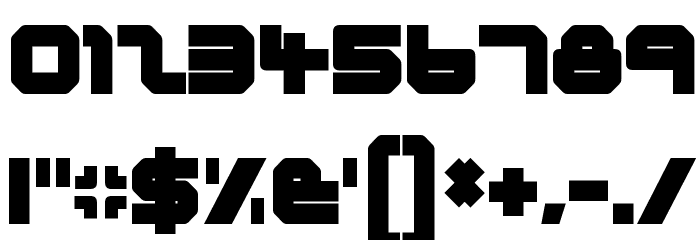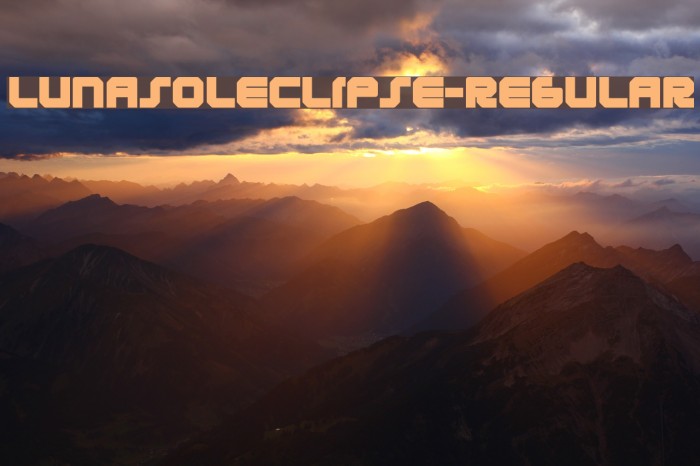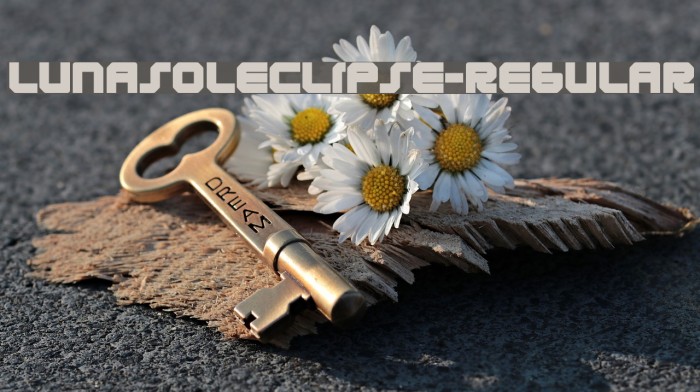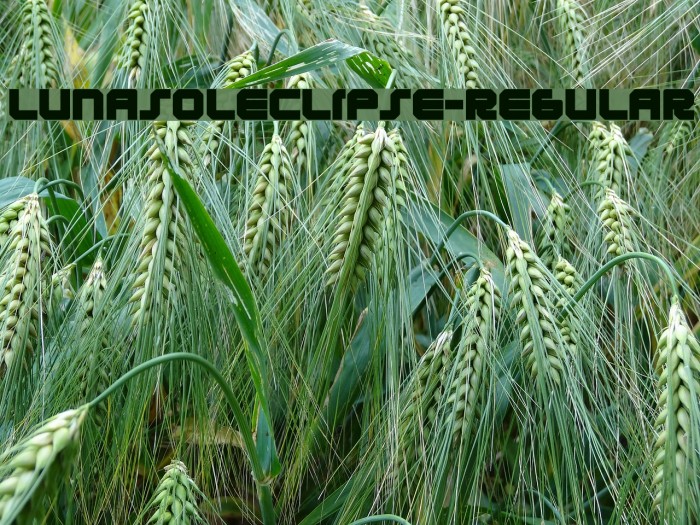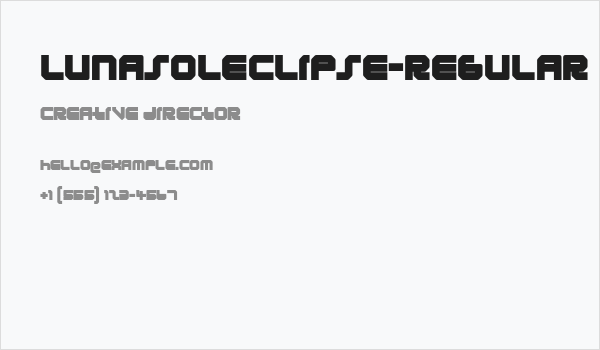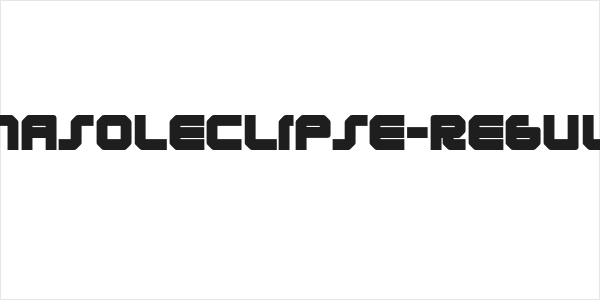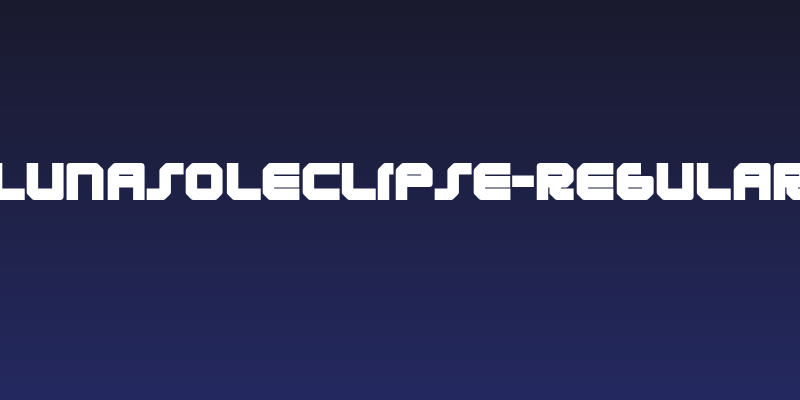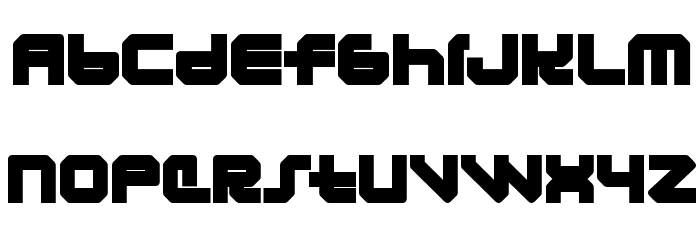
LunasolEclipse-Regular Font
LunasolEclipse-Regular Description
This font features a bold, geometric design with a futuristic aesthetic. The characters are constructed with thick, block-like shapes, giving them a strong and impactful presence. The angular edges and uniform stroke width contribute to a modern and technical feel. The uppercase and lowercase letters share a consistent style, maintaining clarity and readability. Numbers and special characters are designed with the same bold and structured approach, ensuring a cohesive look across all elements. This font is ideal for projects that require a strong visual impact and a contemporary, tech-inspired vibe.
Proposed ProjectsIdeal for technology branding, sci-fi themed designs, video game interfaces, and modern advertising.